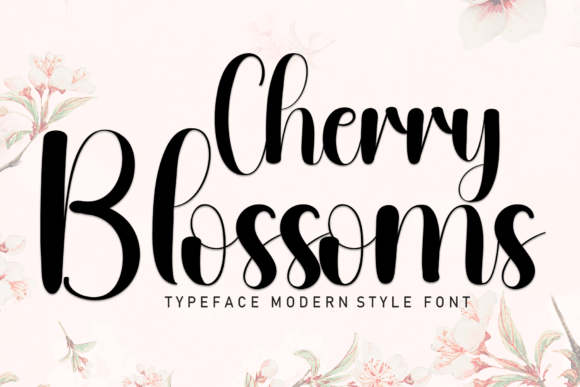
Introducing Cherry Blossoms Font: The Sweet and Friendly Handwritten Font for Your Designs
Are you looking for a font that can add a touch of sweetness and friendliness to your designs? Look no further than Cherry Blossoms Font! This beautiful handwritten font is perfect for creating wedding invitations, cards, and other designs that require a lovely and elegant touch.
What is Cherry Blossoms Font?
Cherry Blossoms Font is a sweet and friendly handwritten font that is designed to bring a fresh and casual feel to your designs. Its unique and elegant style makes it ideal for a variety of projects, from wedding invitations and cards to branding and packaging designs.
Key Features of Cherry Blossoms Font
• Handwritten style: Cherry Blossoms Font has a beautiful handwritten style that gives it a personal and unique touch.
• Sweet and friendly: The font has a sweet and friendly feel that makes it perfect for designs that require a touch of warmth and elegance.
• Fresh and casual: The font has a fresh and casual style that makes it ideal for a variety of projects, from formal to informal designs.
• Elegant and sophisticated: Despite its casual style, Cherry Blossoms Font has an elegant and sophisticated feel that makes it perfect for high-end designs.
Uses of Cherry Blossoms Font
Cherry Blossoms Font is a versatile font that can be used for a variety of projects, including:
• Wedding invitations: The font’s elegant and sophisticated style makes it perfect for wedding invitations and other wedding-related designs.
• Cards and stationery: Cherry Blossoms Font is ideal for creating beautiful cards and stationery that require a personal touch.
• Branding and packaging: The font’s unique style makes it perfect for branding and packaging designs that require a touch of elegance and sophistication.
• Digital designs: Cherry Blossoms Font can be used for digital designs, such as social media graphics, blog posts, and website headers.
Benefits of Using Cherry Blossoms Font
Using Cherry Blossoms Font in your designs can have several benefits, including:
• Unique and distinctive style: The font’s unique style will help your designs stand out from the crowd and give them a personal touch.
• Elegant and sophisticated feel: Cherry Blossoms Font will add an elegant and sophisticated feel to your designs, making them perfect for high-end projects.
• Easy to read: The font is easy to read, making it perfect for designs that require a lot of text.
• Versatile: Cherry Blossoms Font can be used for a variety of projects, from formal to informal designs.
Tips for Using Cherry Blossoms Font
Here are some tips for using Cherry Blossoms Font in your designs:
• Use it for headings and titles: Cherry Blossoms Font is perfect for headings and titles, where its elegant and sophisticated style can shine.
• Pair it with other fonts: The font can be paired with other fonts to create a unique and interesting contrast.
• Experiment with different colors: Cherry Blossoms Font looks great in a variety of colors, so don’t be afraid to experiment and find the perfect color for your design.
• Use it for digital designs: The font can be used for digital designs, such as social media graphics and website headers.
Cherry Blossoms Font is a beautiful and elegant handwritten font that is perfect for adding a touch of sweetness and friendliness to your designs. Its unique and distinctive style makes it ideal for a variety of projects, from wedding invitations and cards to branding and packaging designs. With its elegant and sophisticated feel, easy readability, and versatility, Cherry Blossoms Font is a great addition to any designer’s toolkit.